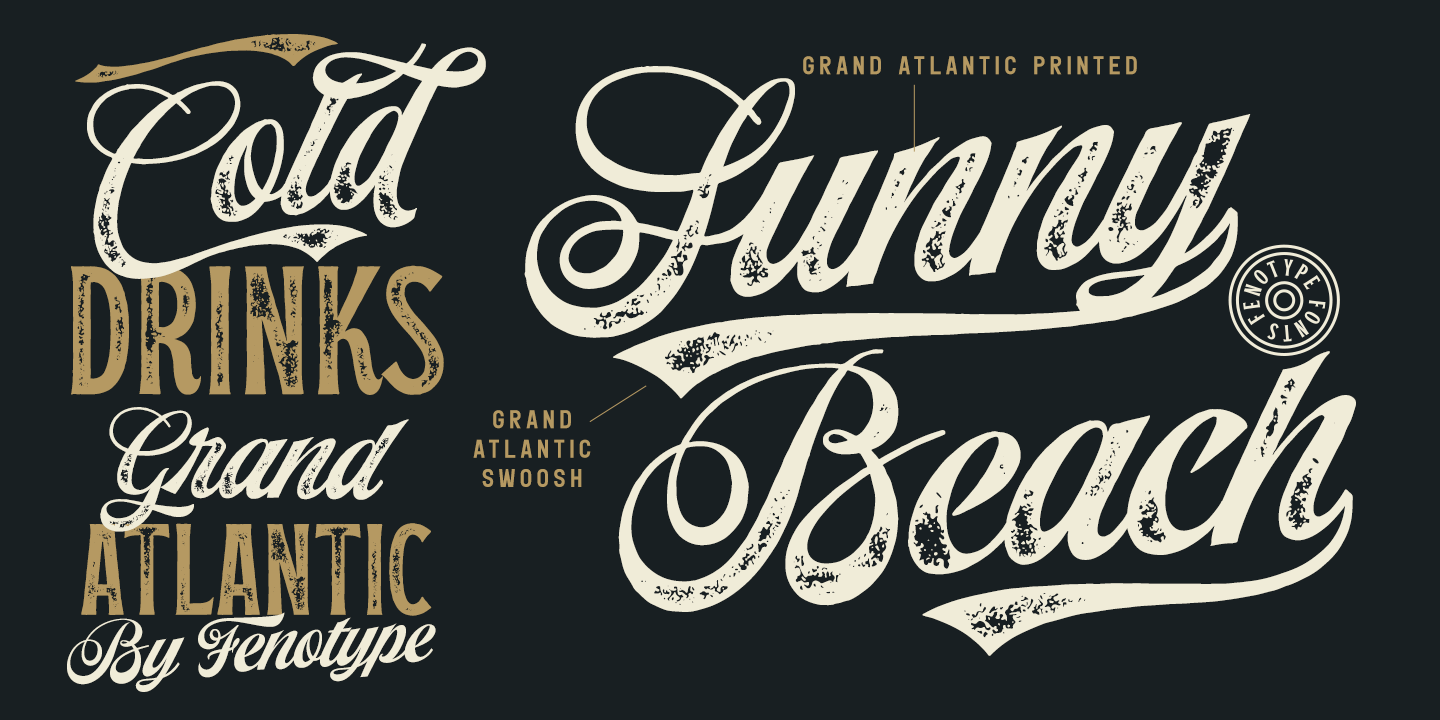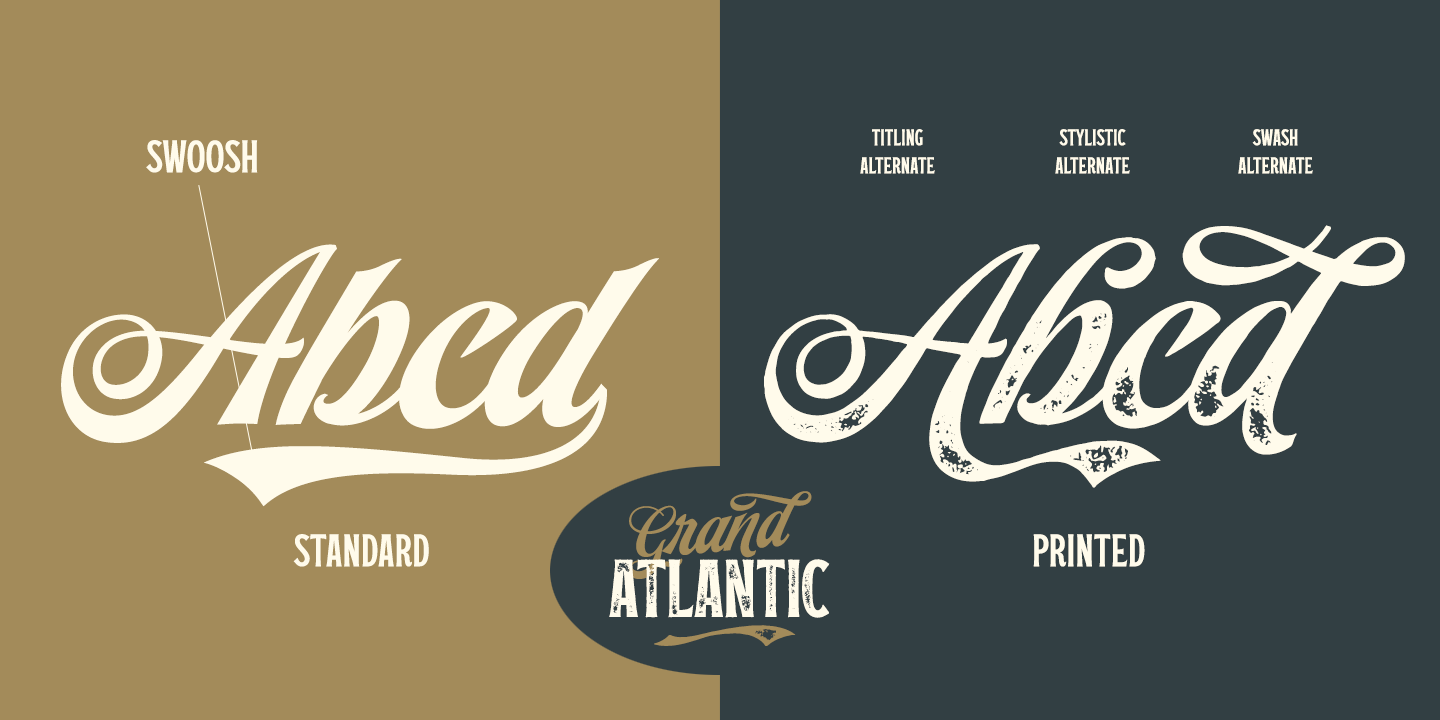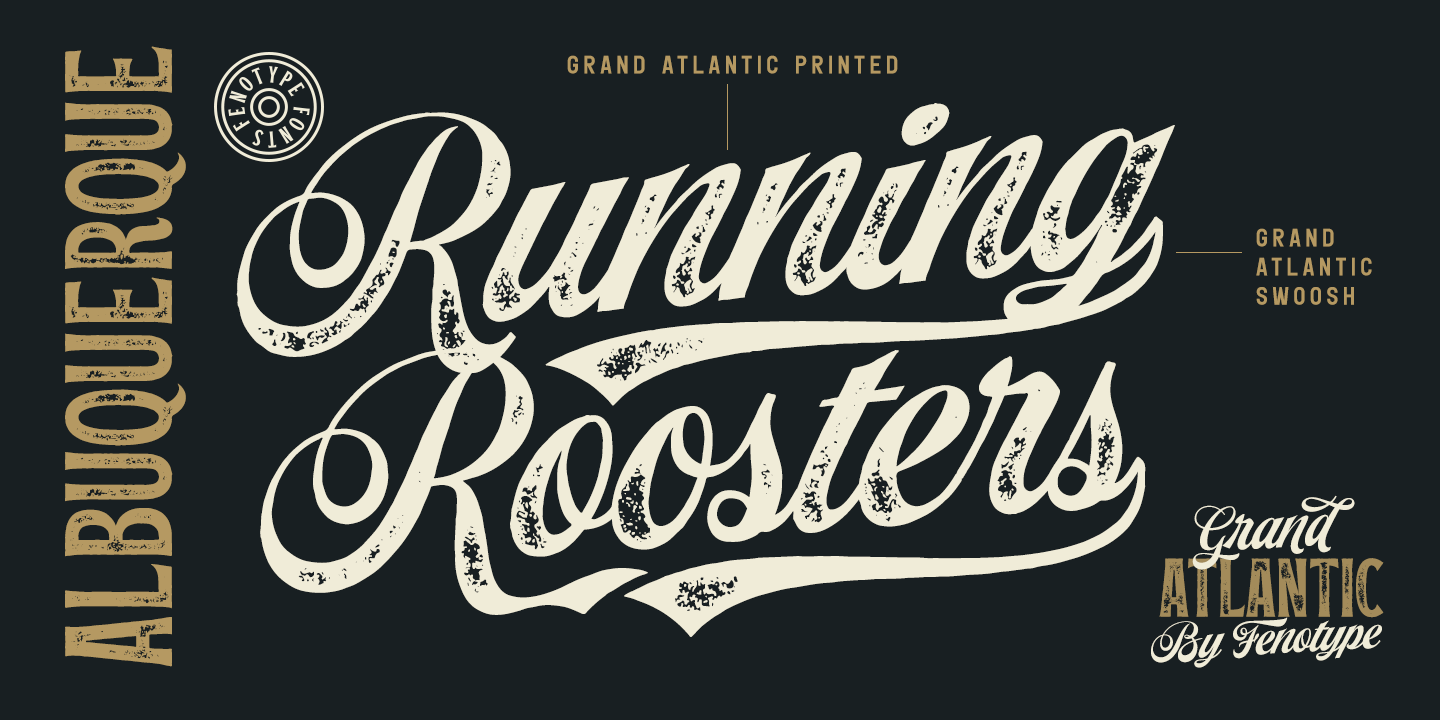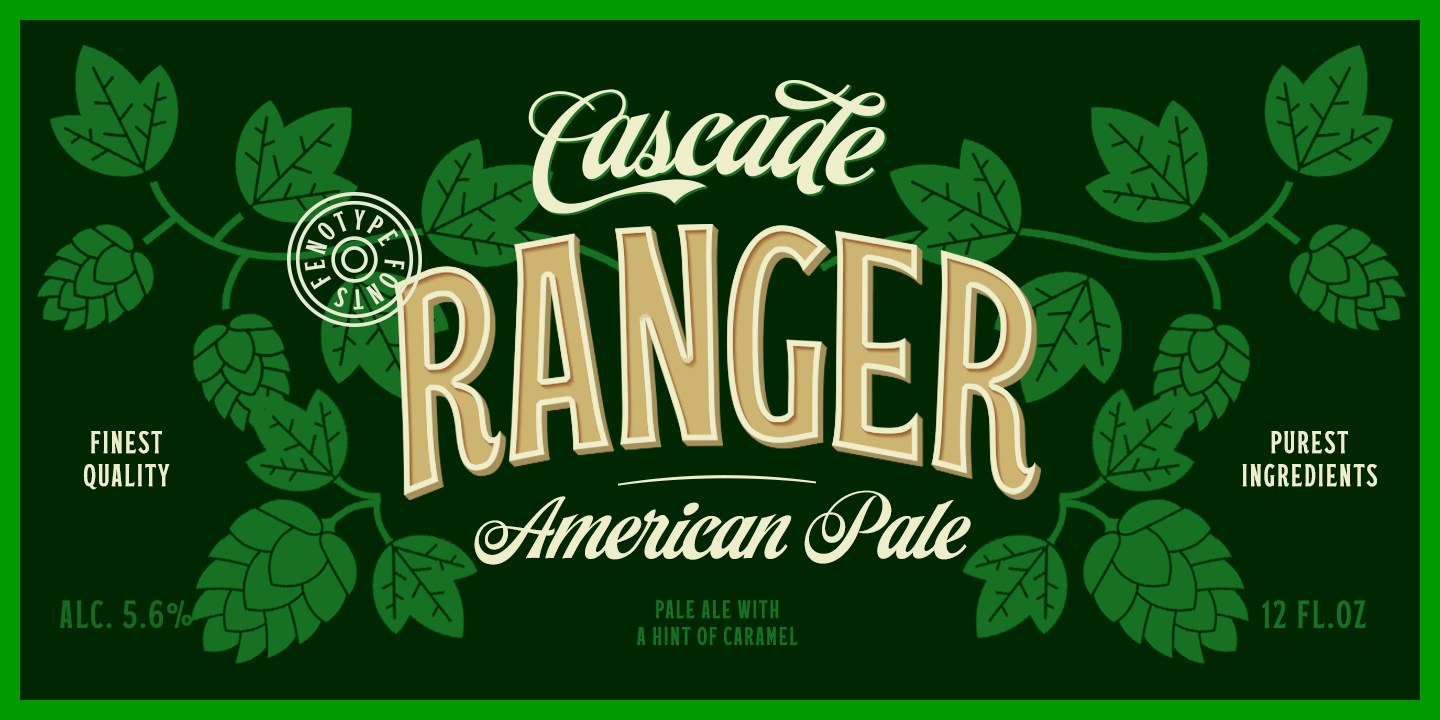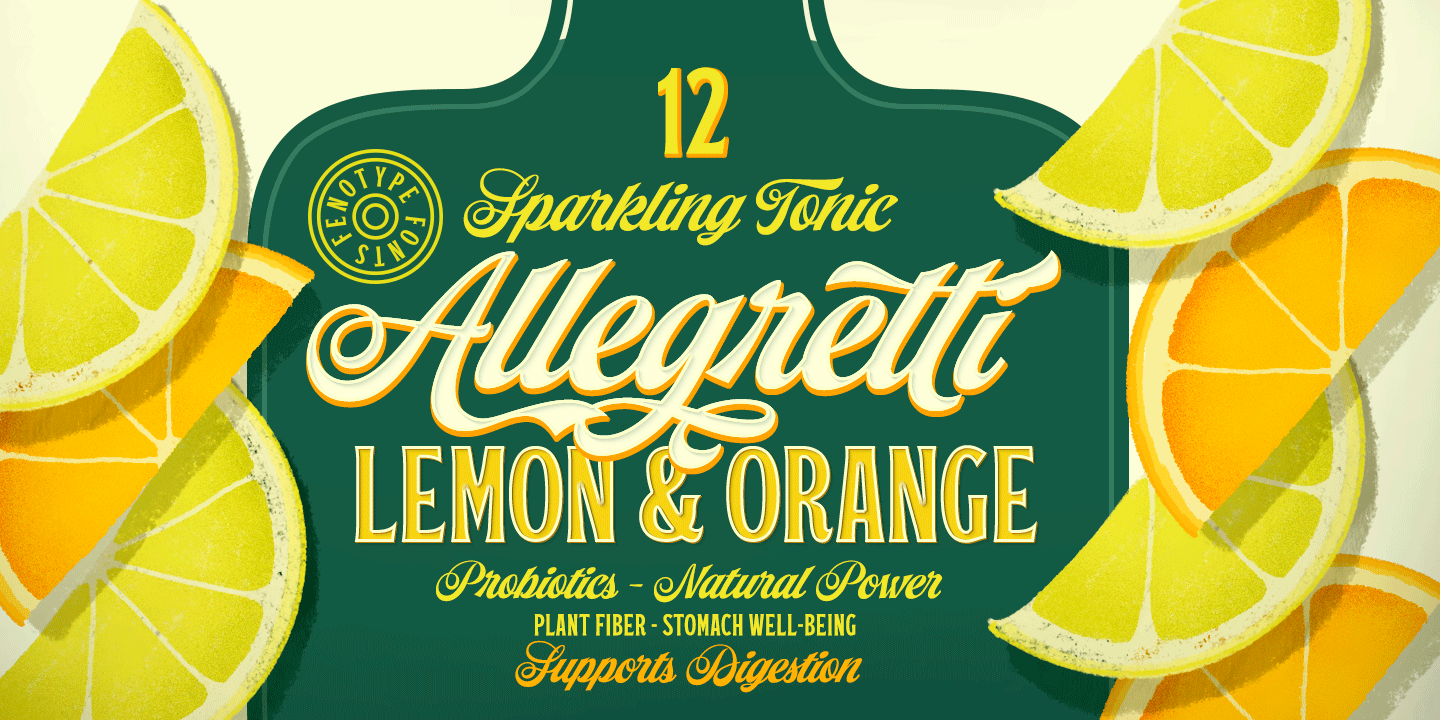
About Grand Atlantic Complete
Grand Atlantic is a powerful display package by Fenotype. It\’s a genuine Brush script packed with features and Swoosh extras and it\’s a striking condensed flared serif in two weights, designed with the same sharp edges on the flares as the Brush. Together…